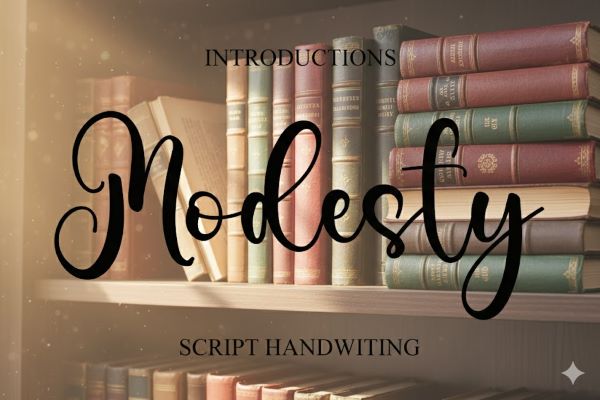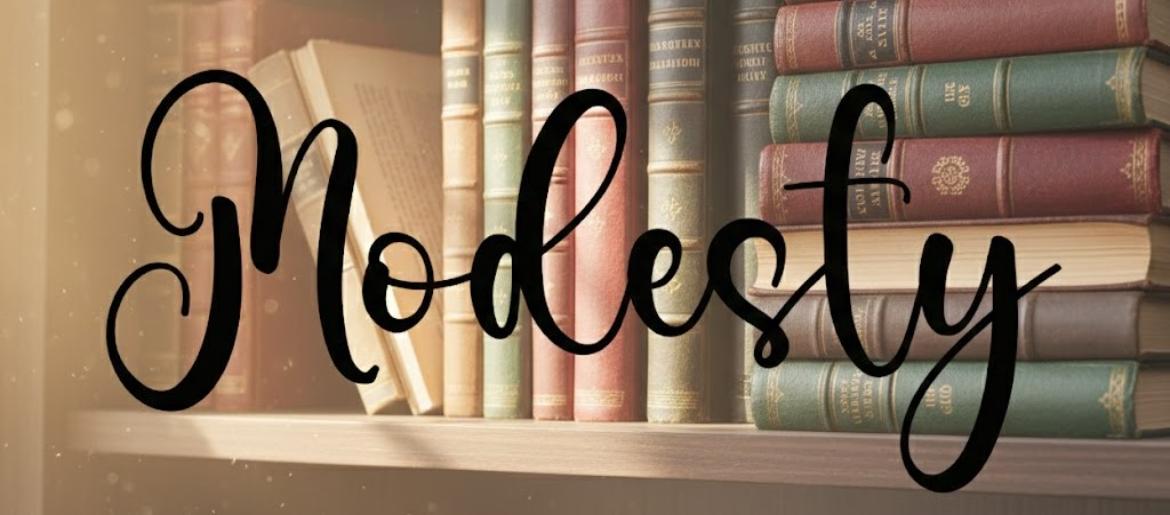
Modesty Script Font
Modesty Script Font enchants through Mycandythemes’ attractive handwritten design featuring smooth flowing baseline enhancing elegance across creative projects. This bouncy script typeface includes comprehensive uppercase and lowercase letters, numbers, and symbols providing flexibility and creativity for diverse applications.
Modesty Script’s modern calligraphy styling combined with playful pretty character excels in wedding invitations, branding materials, logo design, greeting cards, social media graphics, elegant stationery, and any application demanding charming handwritten typography that adds elegant cursive sophistication while maintaining approachable warmth across ceremonial and contemporary communications.